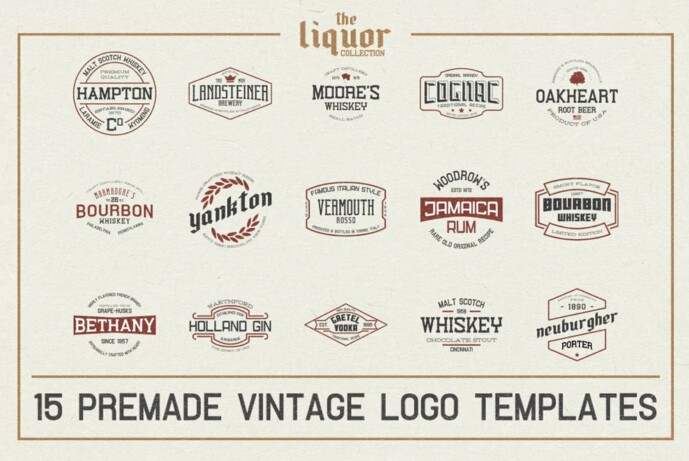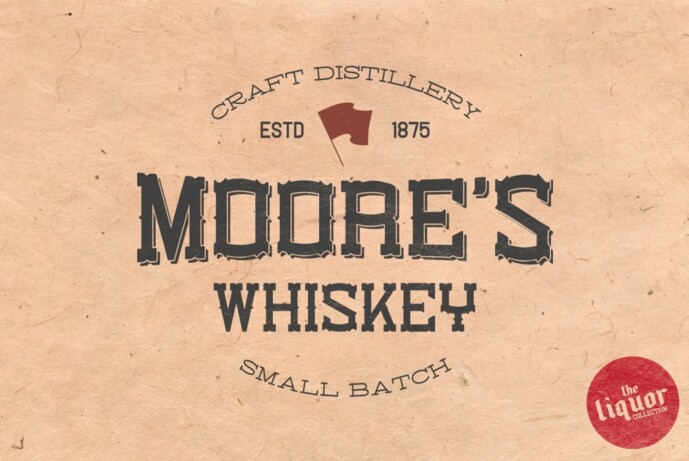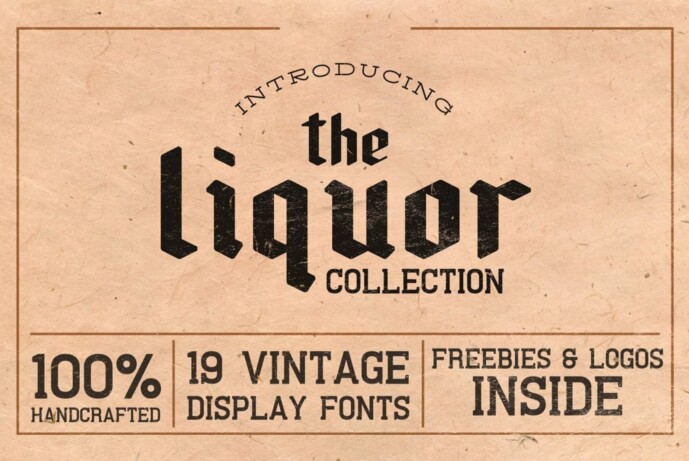
The Liquor Collection Font
The Liquor Collection Font. Once again spent few long weeks on research, designing and testing several fonts that would match each other. Now “The Liquor Collection” is available for sale. All fonts are inspired by retro fonts used on vintage liquor labels, posters and advertising (whiskey, wine, beer, rum, gin and more).